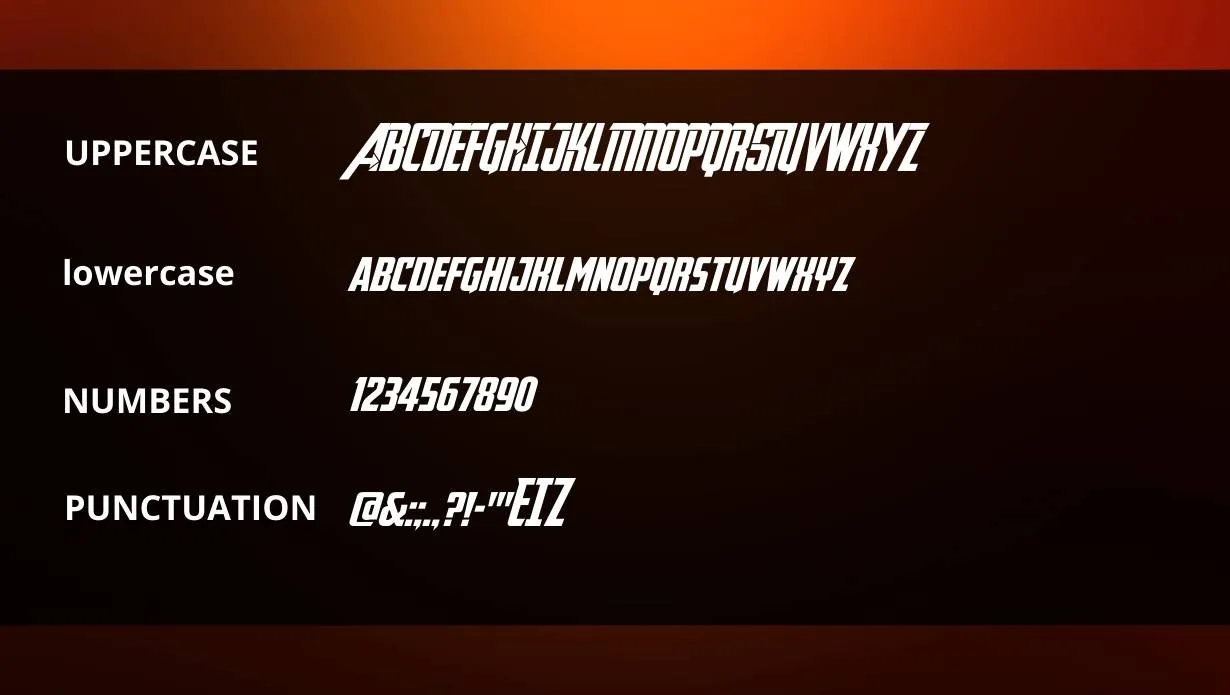
Avengers Font Free Download
Avengers Font is a display typeface that was created by comic book artist and author, John Romita Sr. in collaboration with Marvel Comics. This Typeface was inspired by the lettering of the Avengers comics and has been used extensively in Marvel’s branding.
This Font is available in two weights, Regular and Bold. It includes uppercase and lowercase letters, numbers, and punctuation marks. The font supports Latin, Cyrillic, and Greek character sets.
| Designer | John Romita Sr |
| Style | Display |